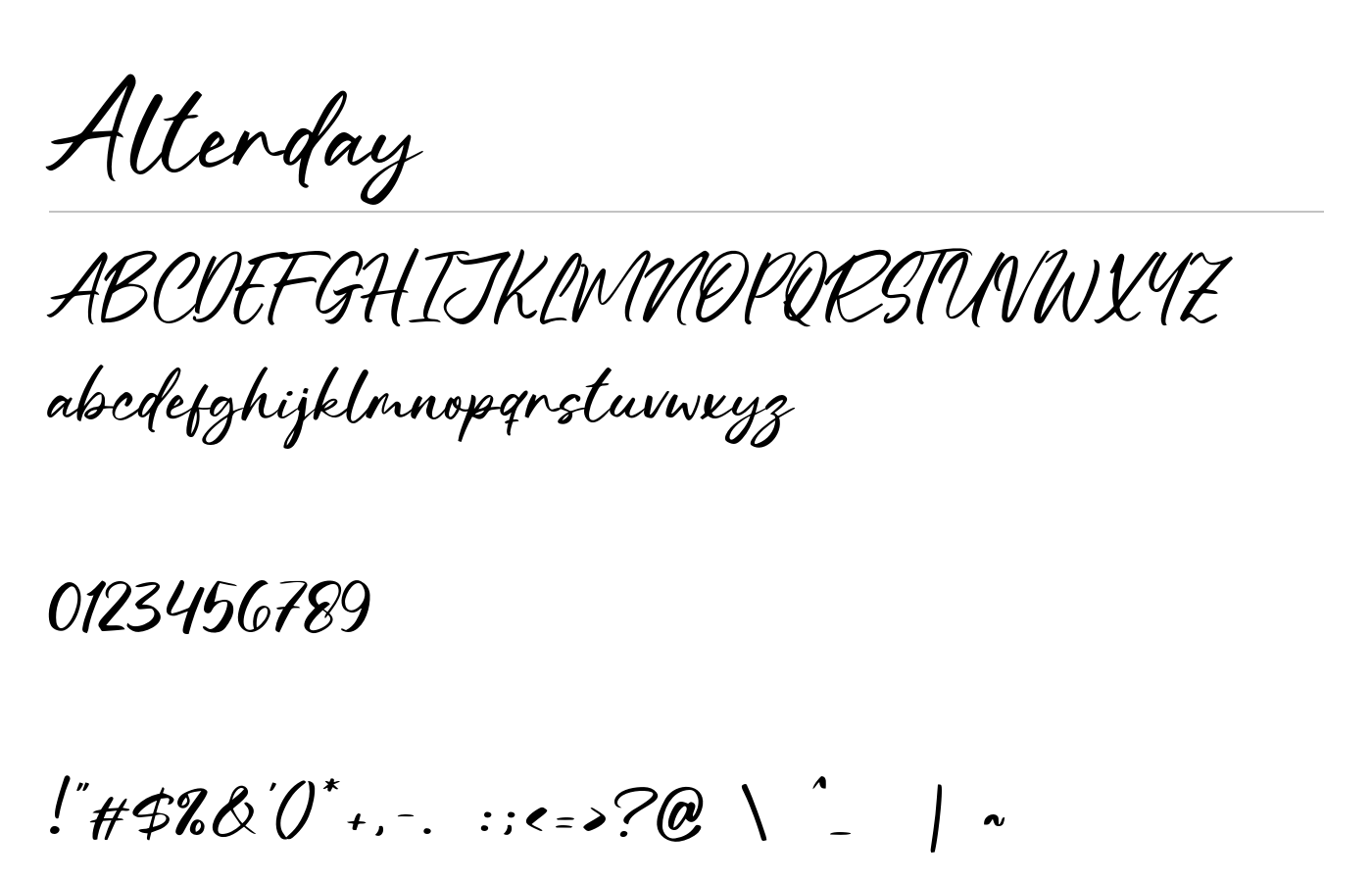
Alterday is a lively script font with a natural, handwritten feel, featuring smooth, flowing strokes and moderate contrast that lends it warmth and approachability. Its slightly slanted, casual letterforms with elegant curves make it ideal for creative branding, invitations, and personal projects that want to convey friendliness and charm. This font works well in headlines and logos where a personal, artistic touch is needed.
Alterday Font
About Alterday Font